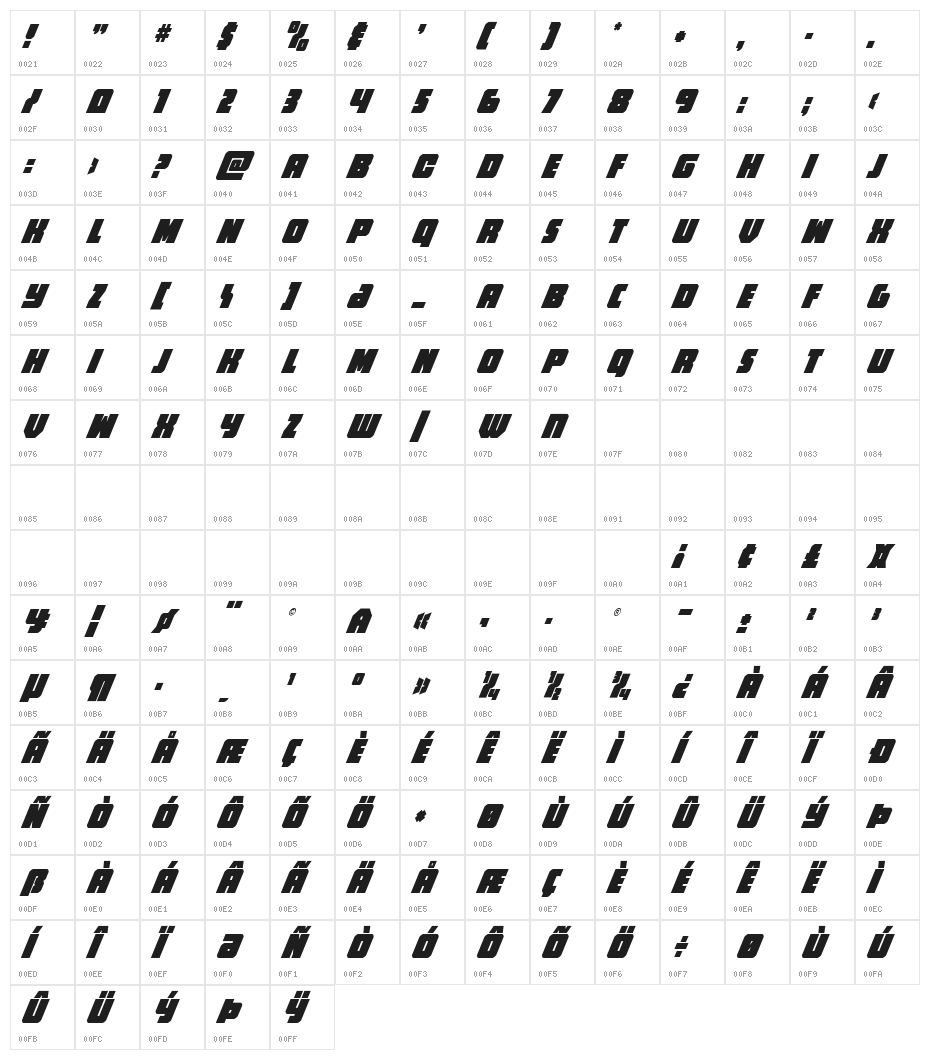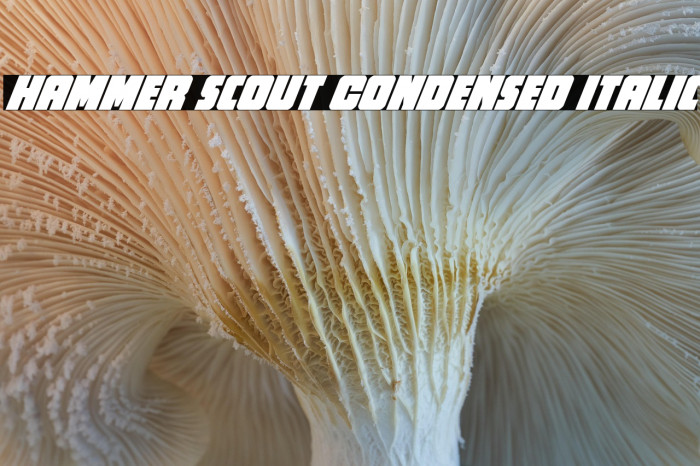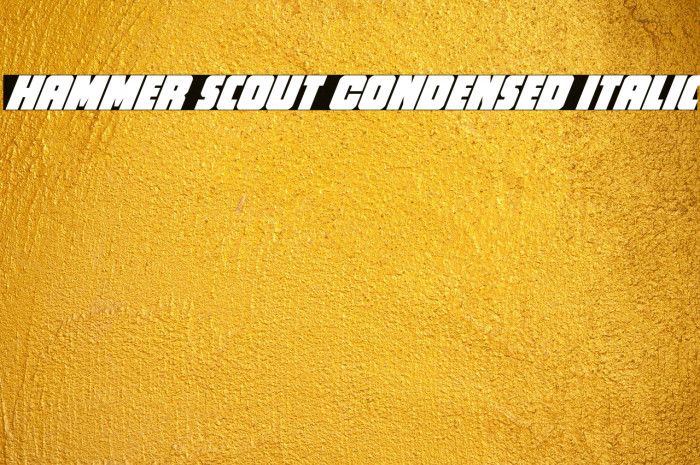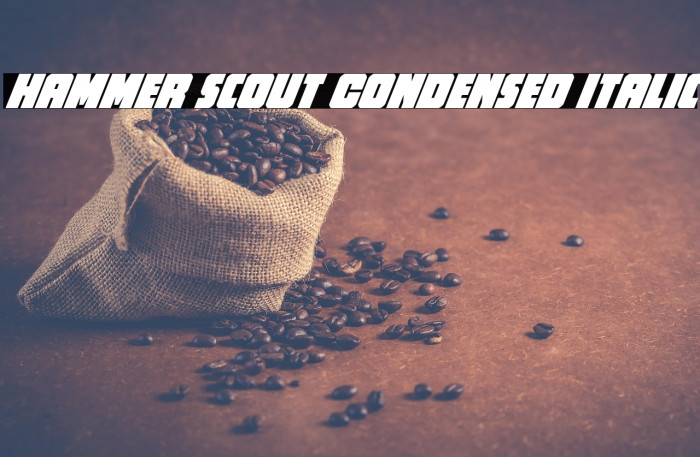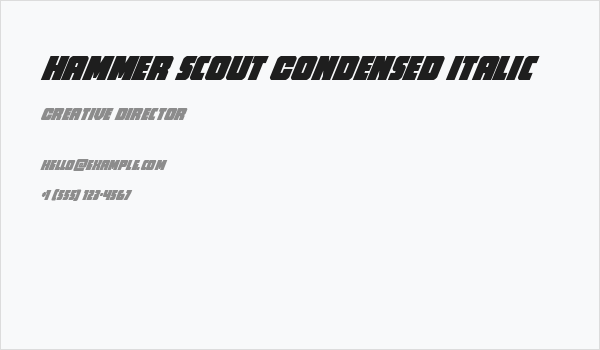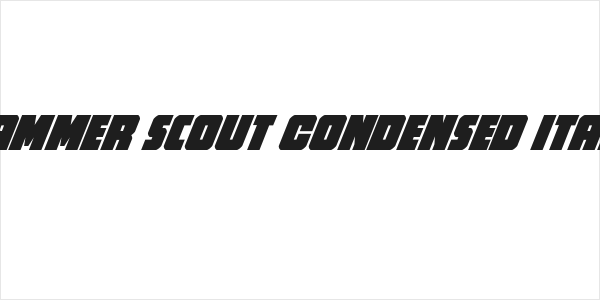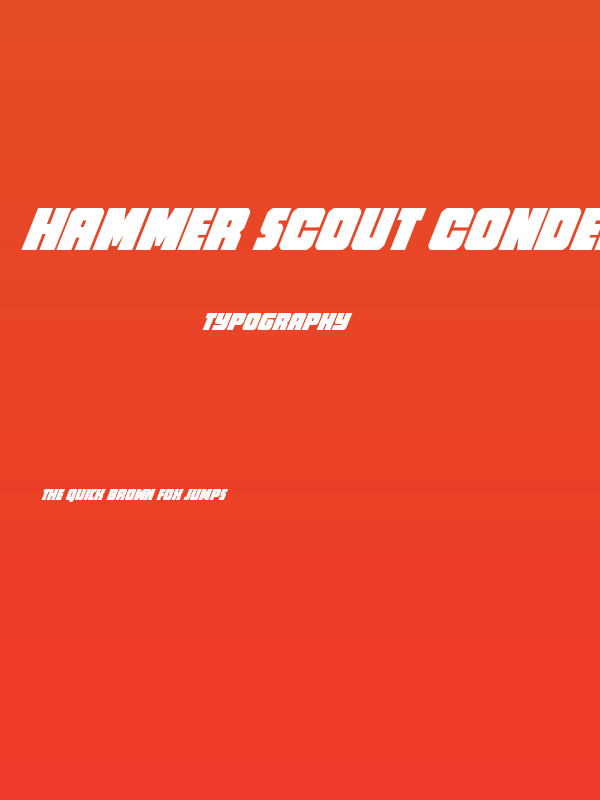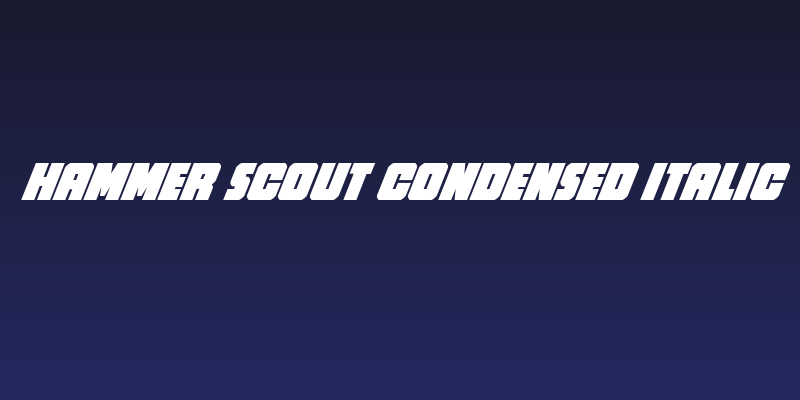
Hammer Scout Condensed Italic Font
Hammer Scout Condensed Italic Description
This font features a bold and dynamic style with a strong presence. The letters are condensed and italicized, giving a sense of movement and urgency. The sharp angles and thick strokes create a powerful and impactful look, suitable for attention-grabbing headlines or branding. The uppercase letters are particularly striking, with a consistent slant that adds to the font's energetic feel. The numbers and special characters maintain the same bold and condensed characteristics, ensuring uniformity across all text elements.
| Proposed Projects | Ideal for sports branding, action movie posters, dynamic advertisements, and bold headlines. |